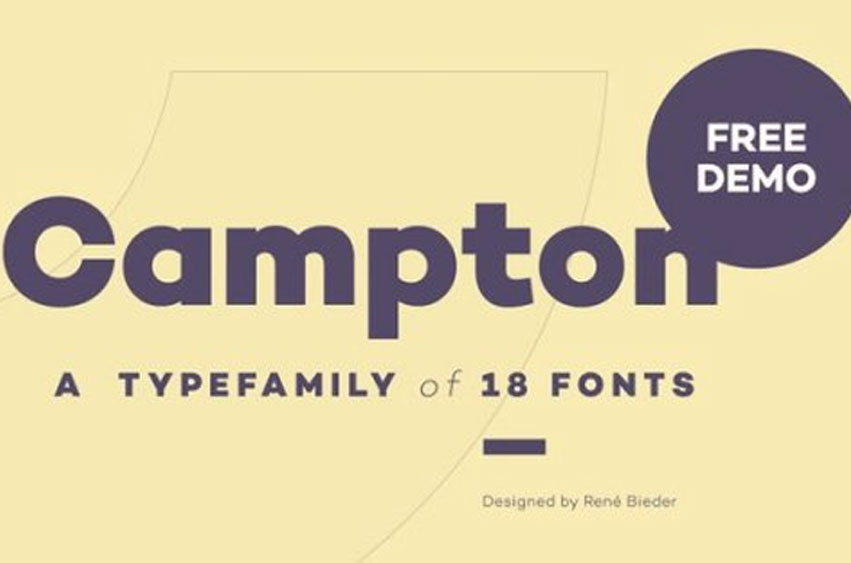
Campton Font
Campton Font is a simple sans serif with a geometric skeleton, based on the mid to early twentieth century visual trend of achieving neutrality. Although there are a lot of typefaces focusing on similar principles, Campton tries to find its niche in the field of anonymous typefaces by combining simplicity with a subtle friendliness.
It is perfectly suited for graphic design application ranging from editorial and corporate design via web and interaction design through to product design. Campton Free Demo available in two weights: Campton Light and Campton Bold.